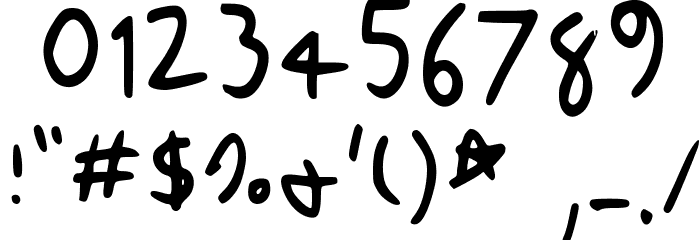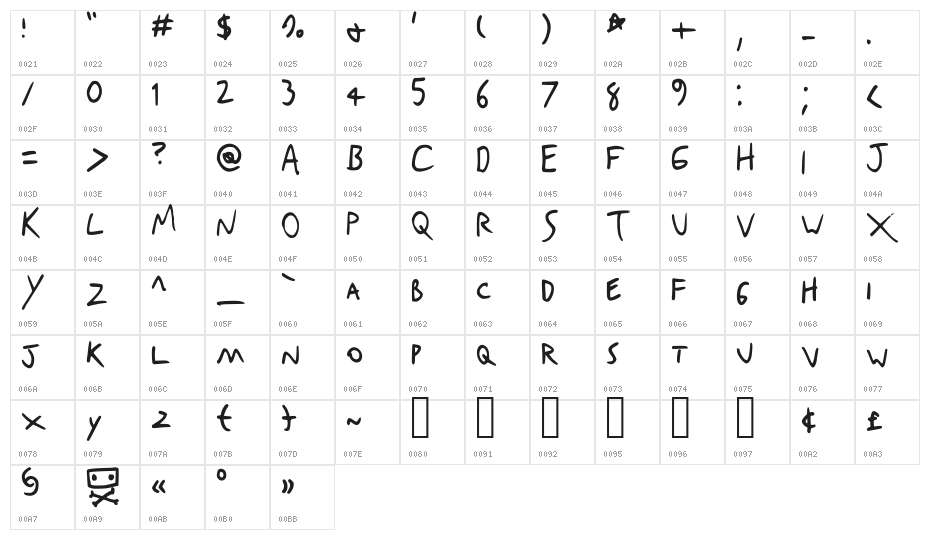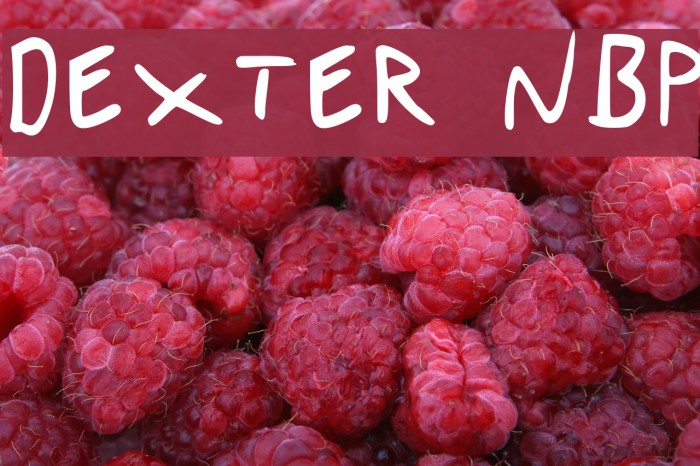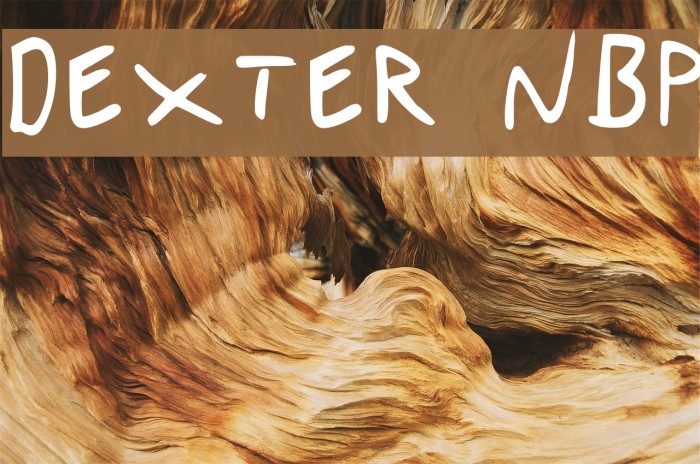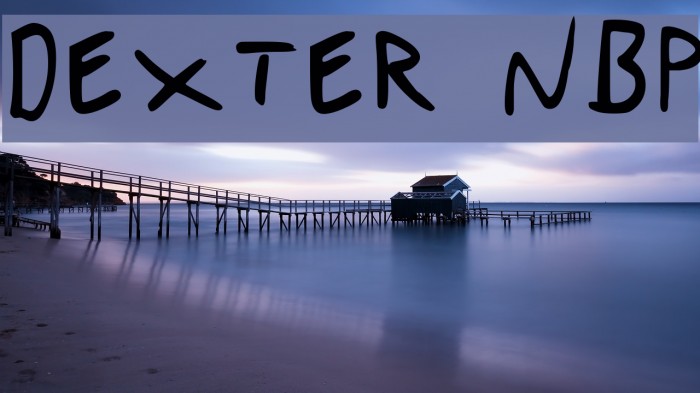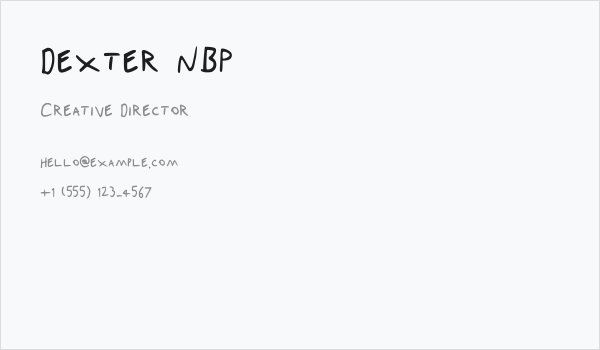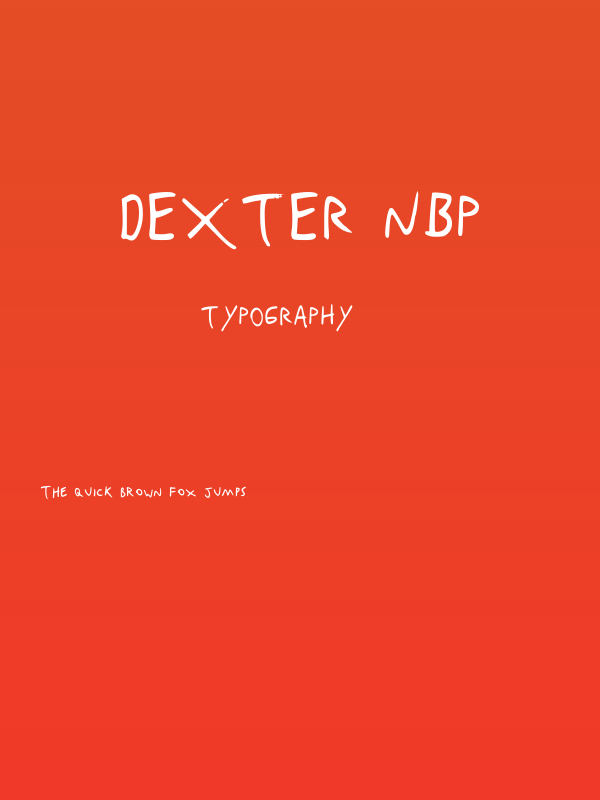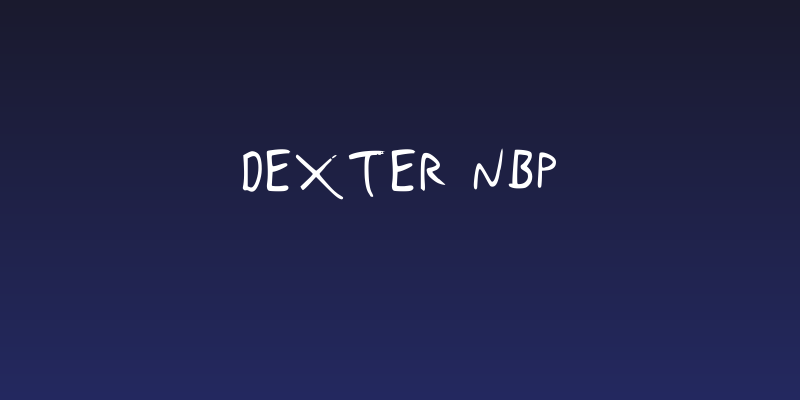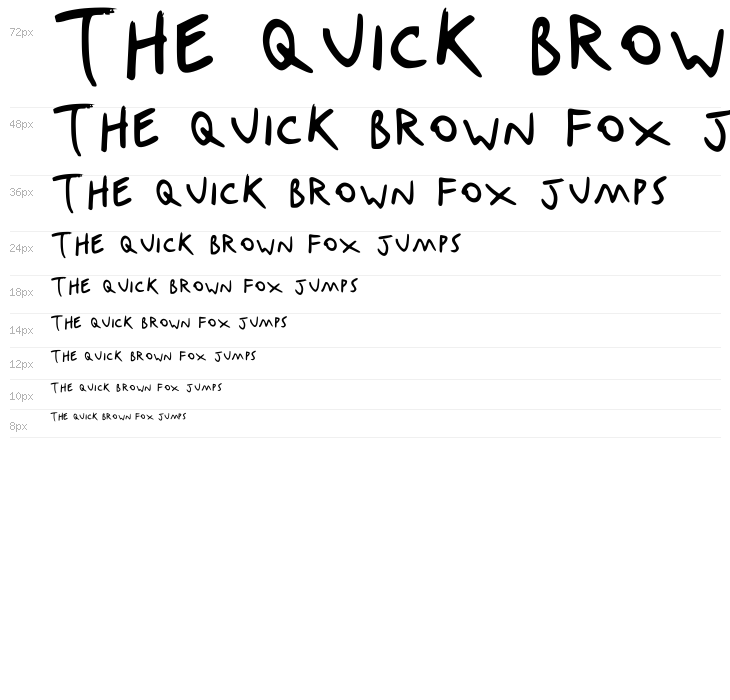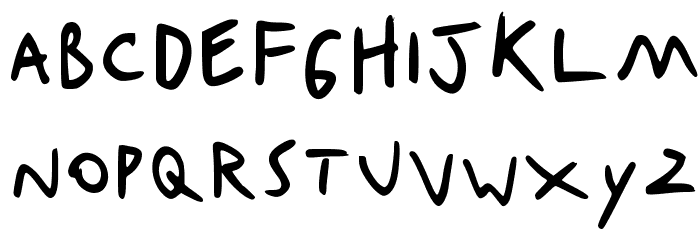
Dexter NBP Font
Dexter NBP Description
This font features a playful and informal handwritten style, characterized by its irregular strokes and casual appearance. The letters are slightly tilted, giving a dynamic and lively feel. The uppercase and lowercase letters maintain a consistent style, with rounded edges and varying stroke widths that add to its charm. The numbers and special characters follow the same playful aesthetic, making it suitable for creative and informal projects. The overall look is approachable and friendly, ideal for conveying a sense of fun and spontaneity.